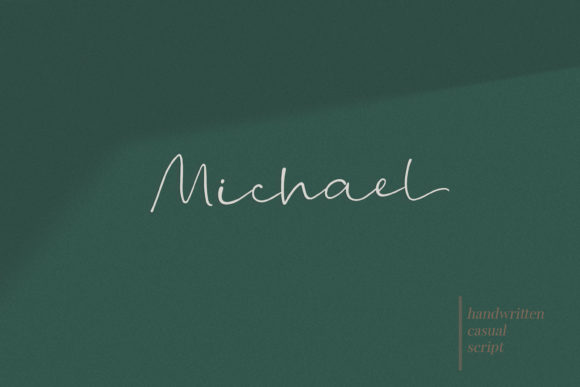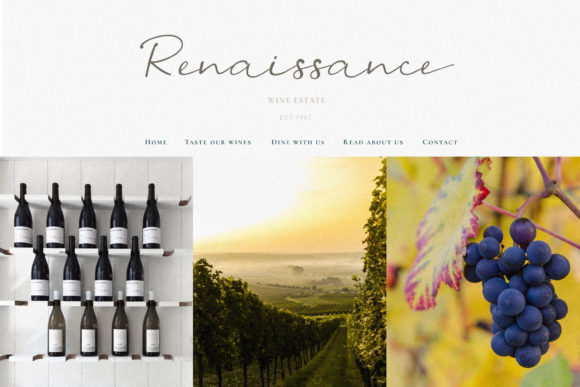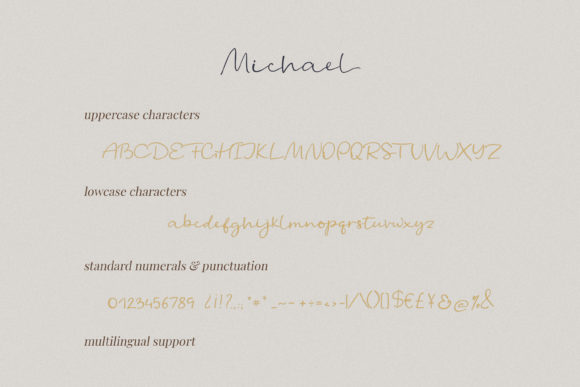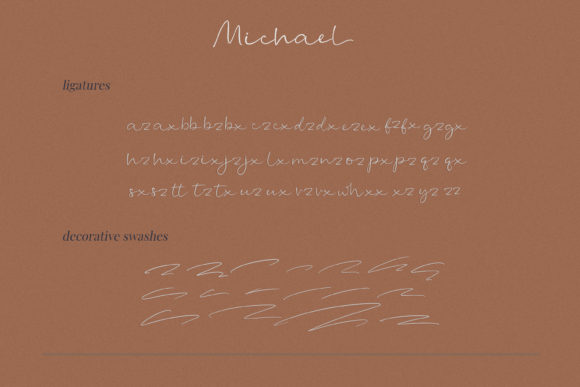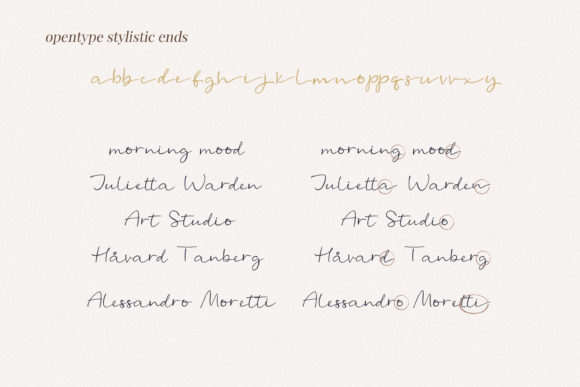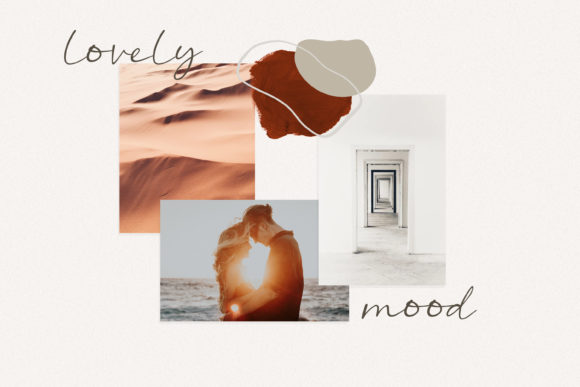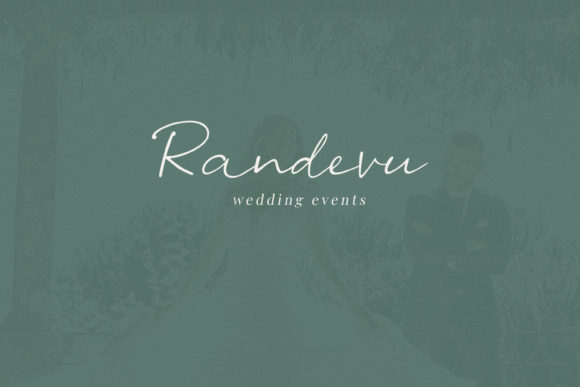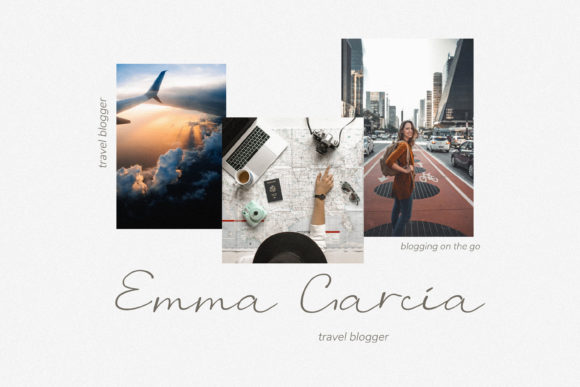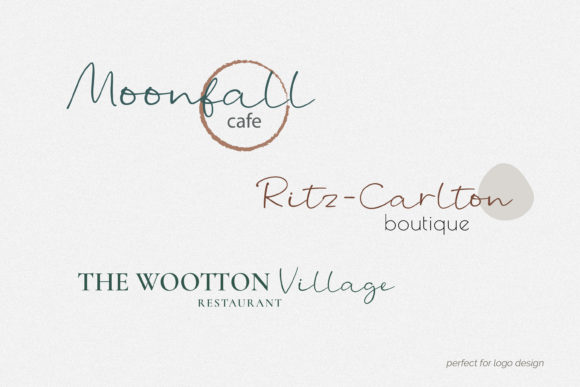
Michael Font
About Michael Font
Michael is a fun and bold script with an incredibly modern feel. It’s the perfect font for lending a sophisticated look to any design project!